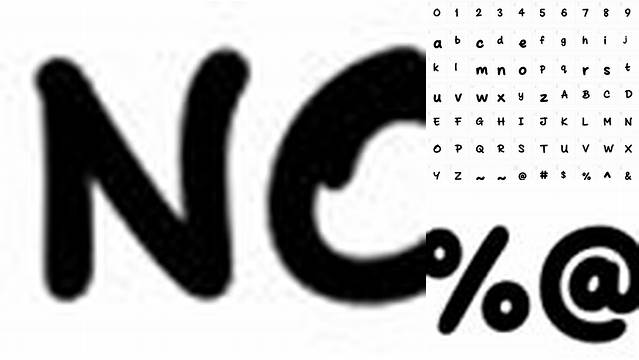
Scribbles AF Chunky Free Font: Bold & Free!
Hey guys! Are you on the hunt for some seriously cool and chunky fonts to make your designs pop? Well, you've landed in the right place! In this article, we're diving deep into the world of Scribbles AF Chunky Free, exploring why it’s such a fantastic choice for a variety of projects, and how you can make the most of its bold and playful aesthetic. So, let's get started and unleash your creativity with these awesome, free fonts!
What Makes Scribbles AF Chunky Free So Special?
When it comes to fonts, the options can seem endless, right? But Scribbles AF Chunky Free stands out for a few key reasons. First off, its chunky design instantly grabs attention. This isn't your subtle, understated typeface; it's bold, it's playful, and it demands to be noticed. This makes it perfect for headlines, posters, and any project where you want to make a big impact. Think about it – a chunky font can really bring a sense of fun and energy to your work, which is something we all want, isn't it?
Another thing that makes Scribbles AF Chunky Free special is its versatility. While it’s definitely a statement font, it’s not just a one-trick pony. You can use it in a wide range of projects, from children's books and party invitations to social media graphics and even branding materials. The key is to understand how to balance its boldness with other design elements. For example, pairing it with a clean, minimalist design can create a striking contrast that really makes your message stand out. Or, you could use it alongside softer, more delicate fonts to add a touch of whimsy and playfulness. The possibilities are pretty much endless!
So, to recap, Scribbles AF Chunky Free is special because it’s bold, versatile, and, most importantly, free. It’s a fantastic addition to any designer’s toolkit, and it’s sure to become one of your go-to fonts for projects that need that extra bit of oomph. Now, let's dive into some specific ways you can use this awesome font in your designs.
Creative Ways to Use Scribbles AF Chunky Free
Okay, so you've got this fantastic chunky font – now what? Don't worry, guys, I've got you covered! There are tons of creative ways to incorporate Scribbles AF Chunky Free into your projects. Let’s explore some ideas to get your creative juices flowing.
Headlines and Titles
First up, headlines and titles are where this font really shines. Scribbles AF Chunky Free is designed to grab attention, so it’s perfect for making a bold statement. Think about using it for blog post titles, website headers, or even the title of a presentation. The chunkiness ensures that your message is seen and remembered. For example, if you’re creating a poster for a school event, using this font for the main title will instantly make it more eye-catching. Or, if you’re designing a social media graphic, a chunky headline can help your post stand out in a crowded feed. The key is to keep the rest of your design relatively clean and simple, so the font can really take center stage.
Posters and Flyers
Posters and flyers are another area where Scribbles AF Chunky Free can make a huge impact. Whether you’re promoting a party, a concert, or a community event, a bold font can help you get your message across effectively. Imagine a flyer for a retro-themed party – using this font for the event title would instantly evoke a sense of fun and nostalgia. Or, for a more modern event, the font’s boldness can create a sense of excitement and energy. When designing posters and flyers, try experimenting with different colors and backgrounds to see what works best with the font. A bright, contrasting color palette can really make the font pop, while a more muted palette can create a sophisticated and stylish look.
Social Media Graphics
In the fast-paced world of social media, it’s crucial to grab attention quickly. Scribbles AF Chunky Free is perfect for creating eye-catching social media graphics that stand out from the crowd. Use it for quote graphics, promotional posts, or even just to add a bit of personality to your profile. The font’s playfulness makes it ideal for Instagram stories, Facebook posts, and Twitter headers. When using it in social media graphics, consider adding some fun design elements like emojis, stickers, or colorful backgrounds to enhance the overall impact. And don’t forget to optimize your graphics for mobile viewing, as most people will be seeing them on their phones.
Branding Materials
While Scribbles AF Chunky Free might not be suitable for every type of brand, it can be a fantastic choice for businesses that want to project a fun, energetic, and playful image. Think about using it for logos, business cards, or marketing materials for businesses like children’s stores, creative agencies, or event planners. The font’s unique style can help you create a brand identity that’s memorable and distinctive. When incorporating it into your branding, be sure to use it consistently across all your materials to maintain a cohesive look and feel. And remember to consider your target audience – if your brand is aimed at a younger demographic, this font could be a perfect fit.
Invitations and Cards
Lastly, Scribbles AF Chunky Free is an excellent choice for invitations and cards. Whether you’re planning a birthday party, a baby shower, or a casual get-together, a bold font can add a touch of fun and personality to your invites. Imagine using it for a child’s birthday invitation – the font’s playfulness would instantly set the tone for a fun and festive celebration. Or, for a more casual event, it can create a relaxed and welcoming vibe. When designing invitations and cards, try pairing the font with some cute illustrations or patterns to create a visually appealing design. And don’t forget to choose a paper stock that complements the font’s style – a textured paper can add a touch of elegance, while a bright, colorful paper can enhance the font’s playfulness.